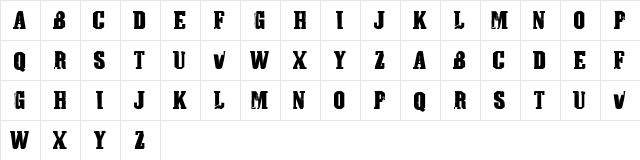
AthleticTown v0.1 Regular
Design Context for AthleticTown v0.1 Typeface
AthleticTown v0.1 has the bold swagger of sports branding: strong, assertive letterforms designed to dominate headlines and jerseys alike.
A natural choice for gym brands, fantasy sports, jersey lettering, and action-driven headlines.
Pro Tip: Use AthleticTown v0.1 in all-caps headlines where its athletic energy can fully express itself. Pair with a solid, simple sans for supporting text.